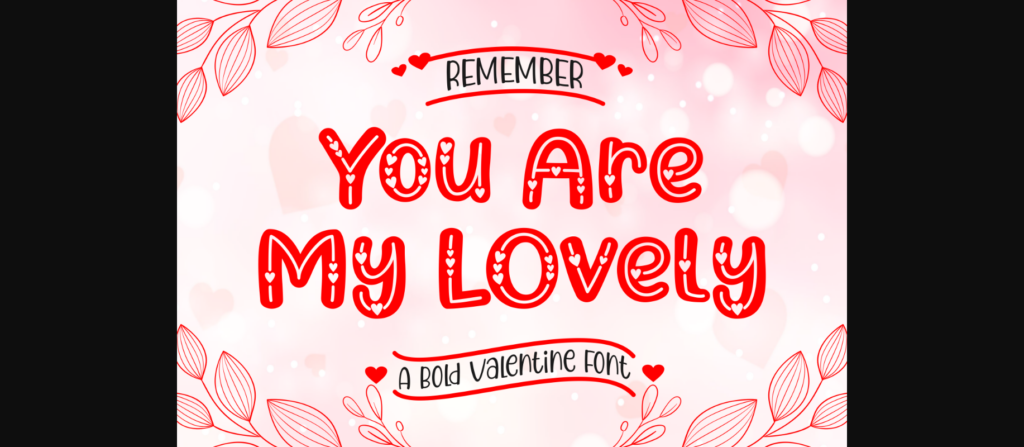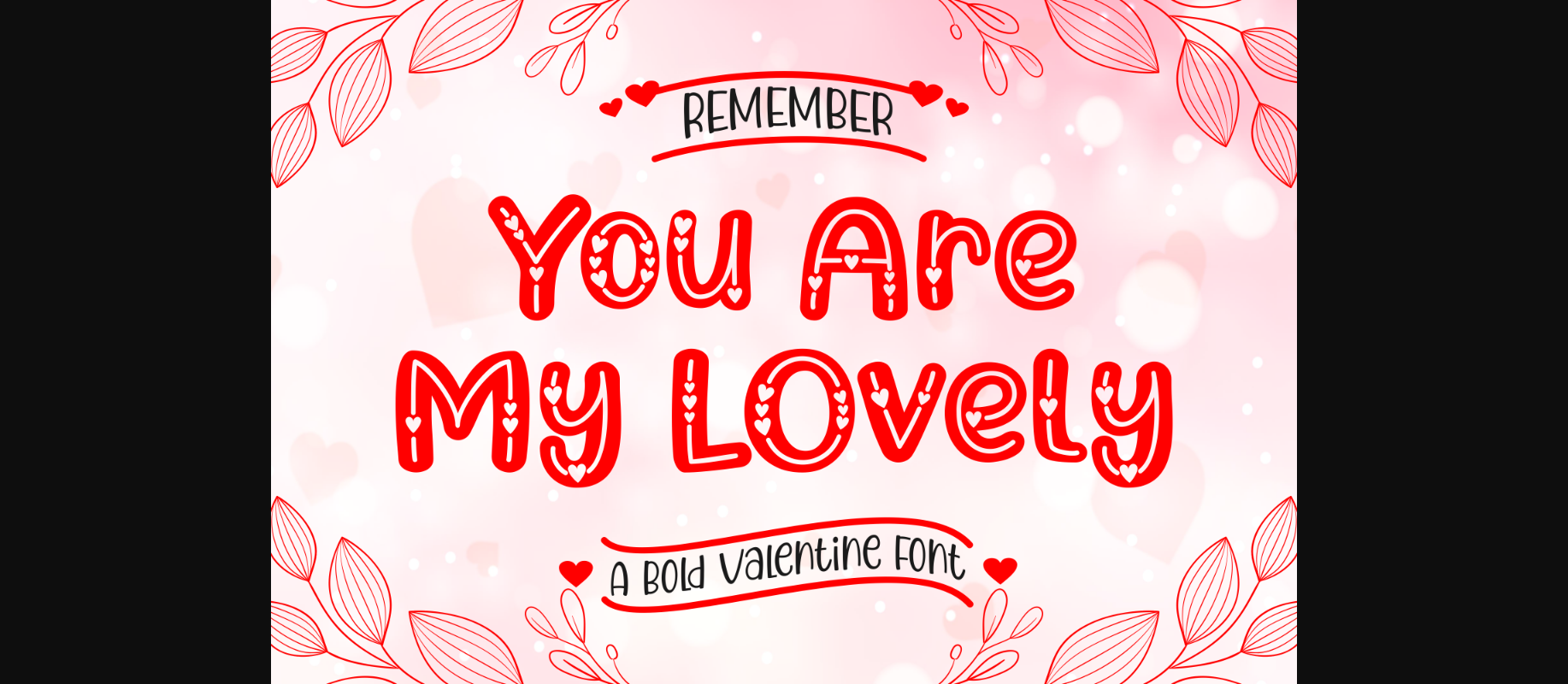
About You Are My Lovely Font
You Are My Lovely is a cute and quirky display font. It will add an incredibly joyful touch to your designs. Add this beautiful display font to each of your creative ideas and notice how it makes them stand out!